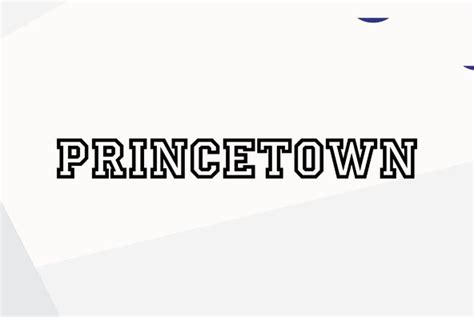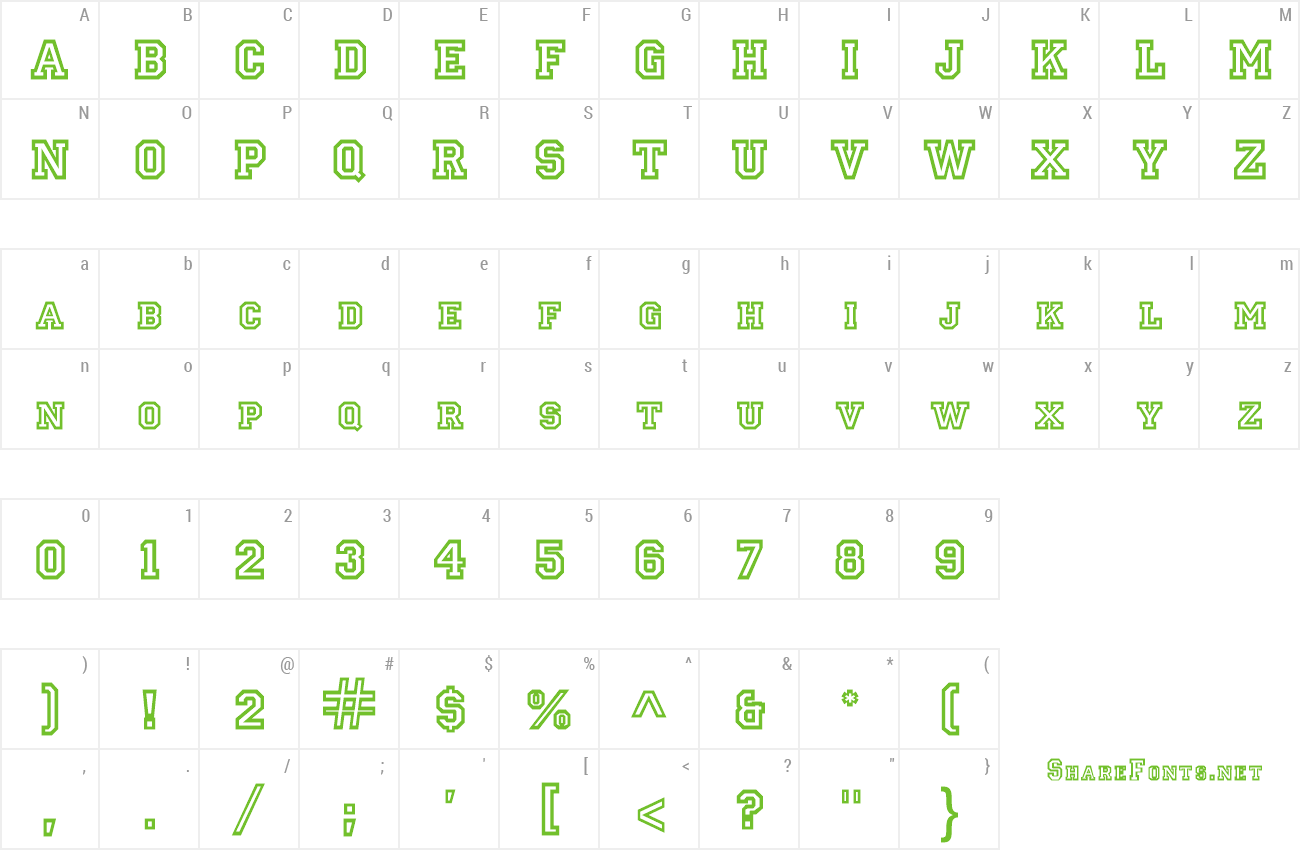
Princetown Com Font. Richard jones designed princetown, an all caps font with strong, geometric letterforms, in 1981. Web richard jones designed princetown, an all caps font with strong, geometric letterforms, in 1981.
Richard jones designed princetown, an all caps font with strong, geometric letterforms, in 1981. Web richard jones designed princetown, an all caps font with strong, geometric letterforms, in 1981.
Web richard jones designed princetown, an all caps font with strong, geometric letterforms, in 1981. Richard jones designed princetown, an all caps font with strong, geometric letterforms, in 1981. Web richard jones designed princetown, an all caps font with strong, geometric letterforms, in 1981.